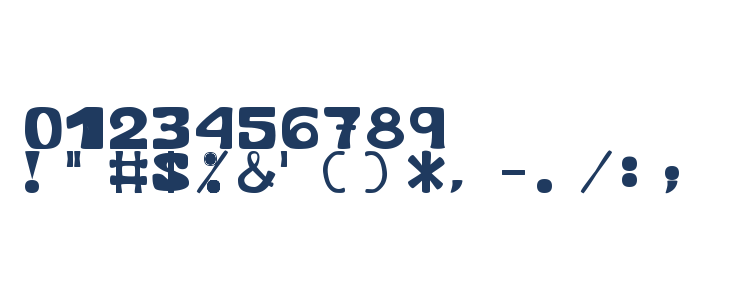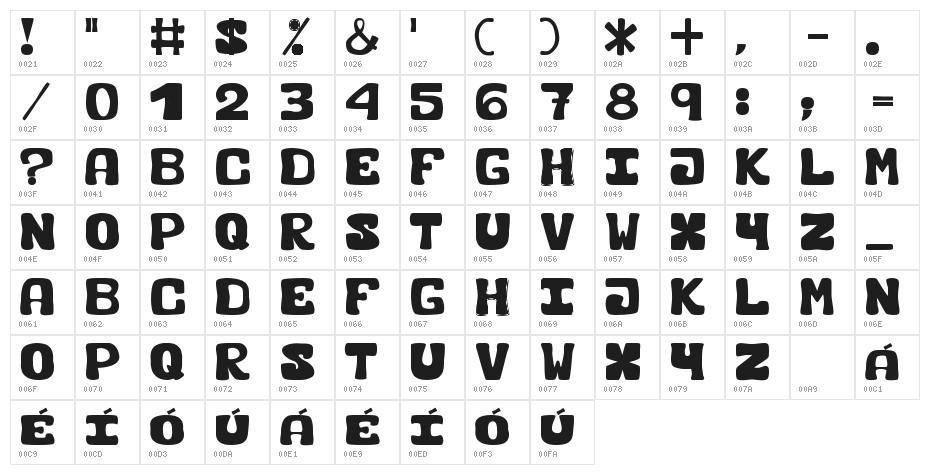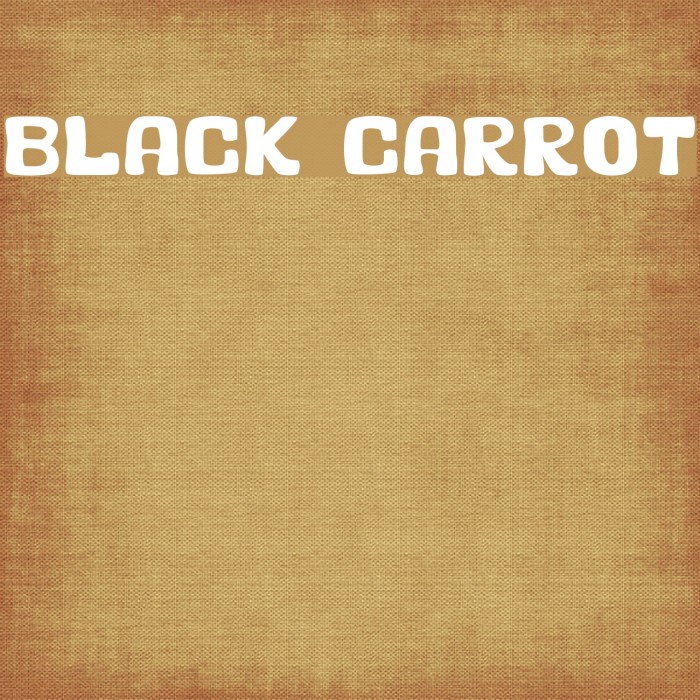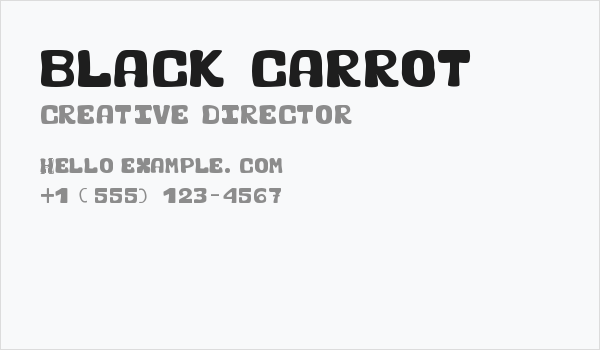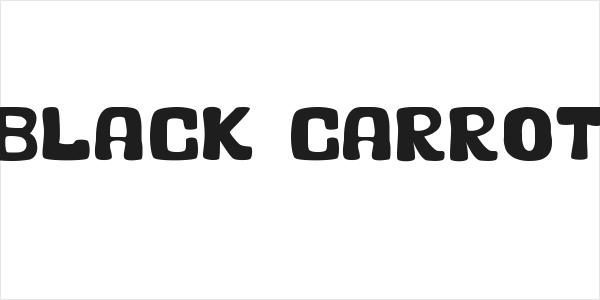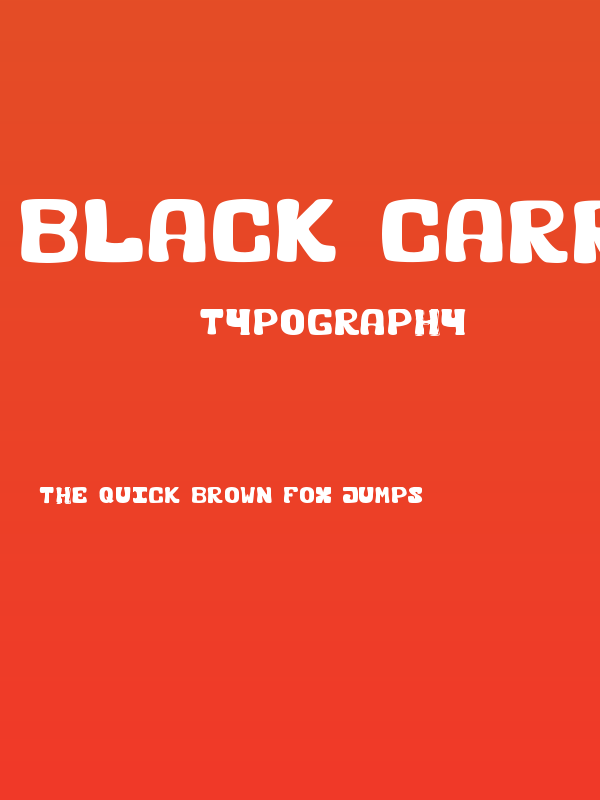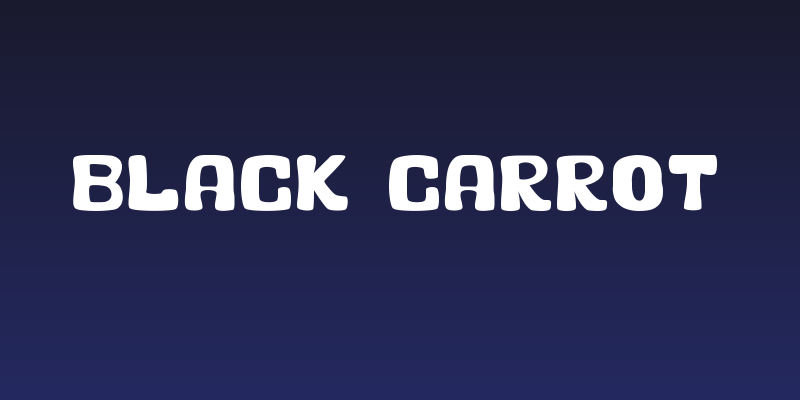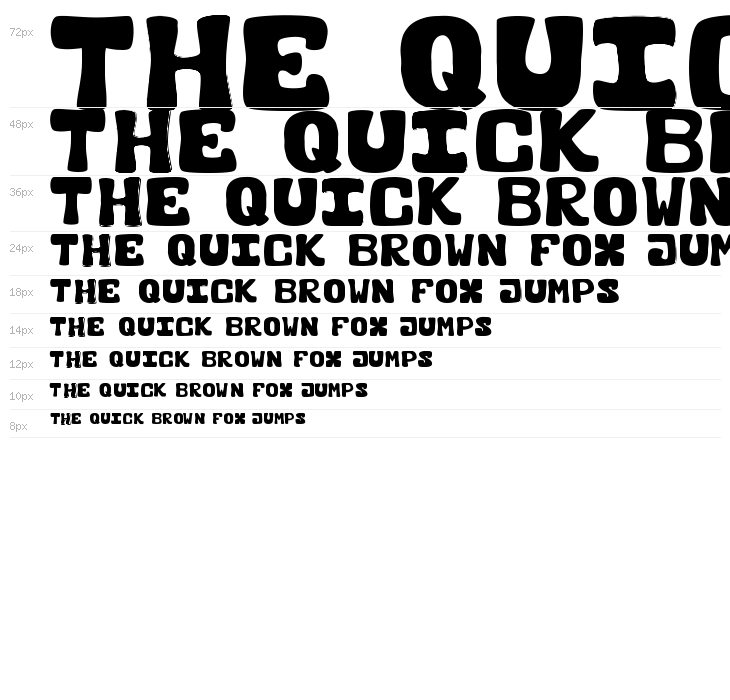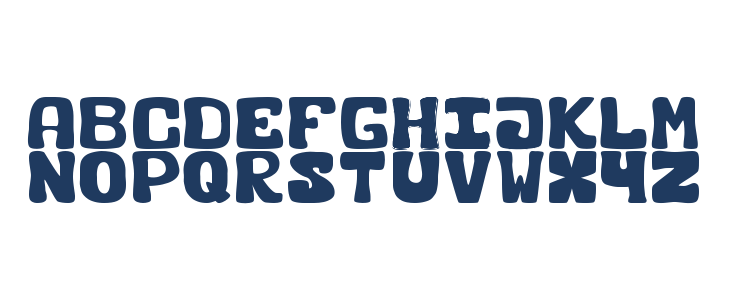
Black Carrot Font
Black Carrot Description
This font features a bold and playful design with a unique, chunky appearance. The characters have a slightly irregular shape, giving them a hand-drawn, organic feel. The strokes are thick and consistent, creating a strong visual impact. The rounded edges and smooth curves add a friendly and approachable vibe, making it suitable for creative and informal projects. The font maintains a consistent weight throughout, ensuring readability while adding a touch of whimsy. Its distinctive style makes it ideal for attention-grabbing headlines and playful branding.
| Overall Style | Playful, Creative |
| Proposed Projects | Perfect for children's books, playful branding, posters, and creative headlines. |